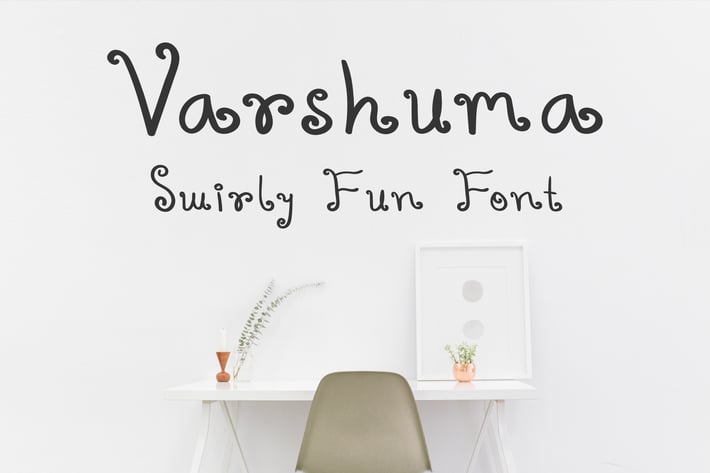
Varshuma - Handwritten Swirly Fun Font
Varshuma - Handwritten Swirly Fun Font, and cute font great for kids designs, invitations, quotes, simple image overlay and video projects.